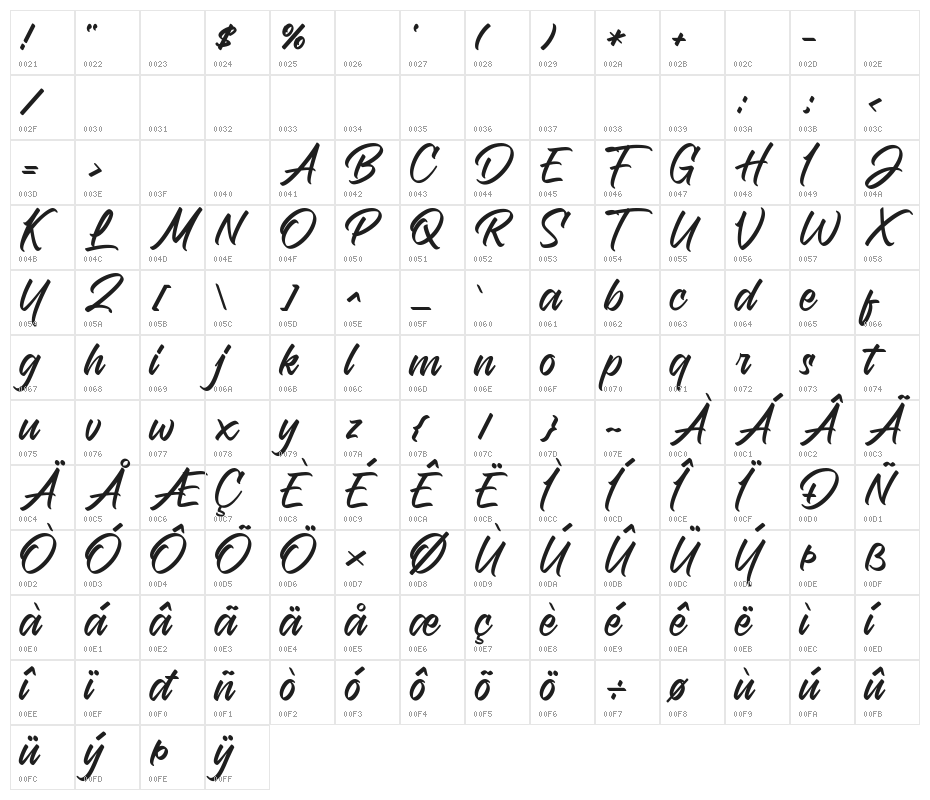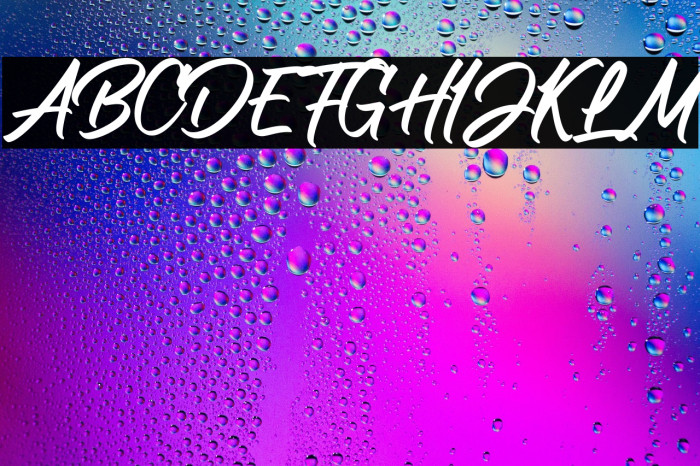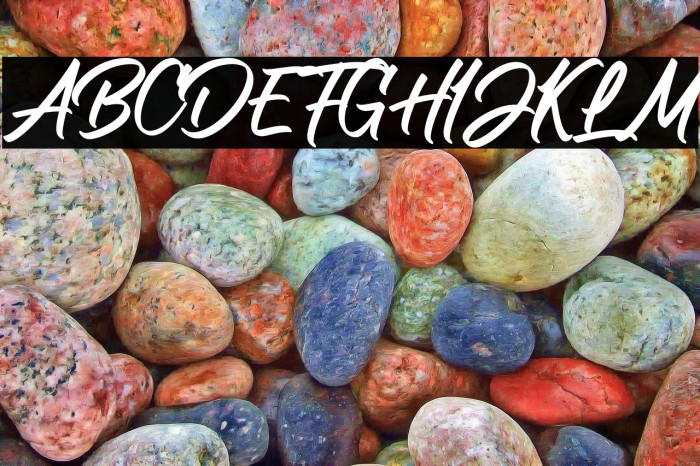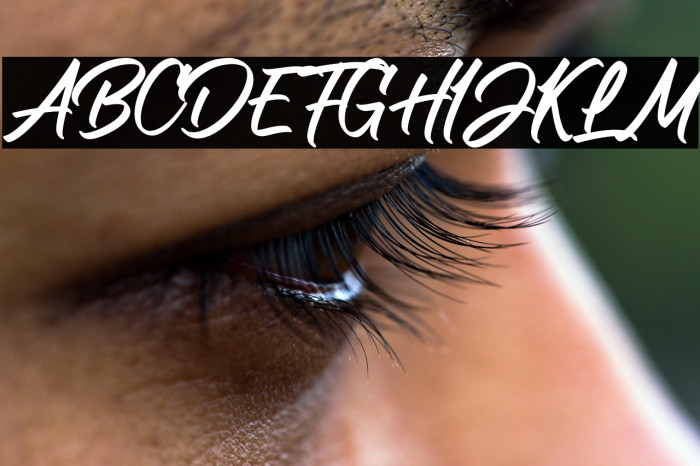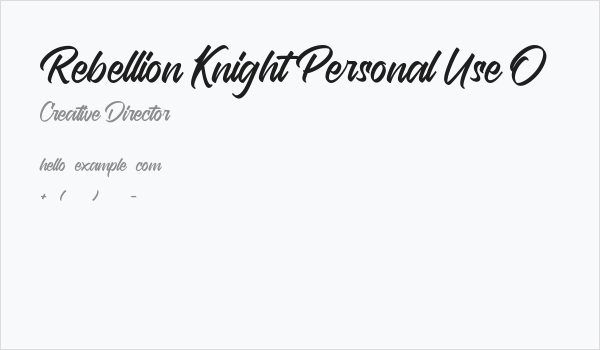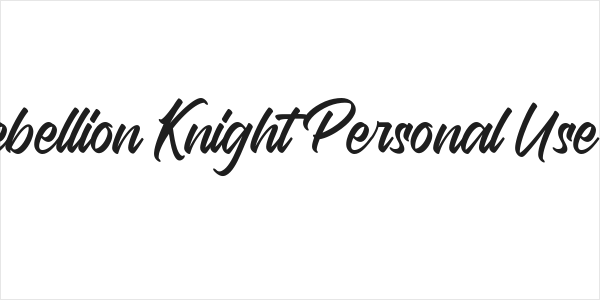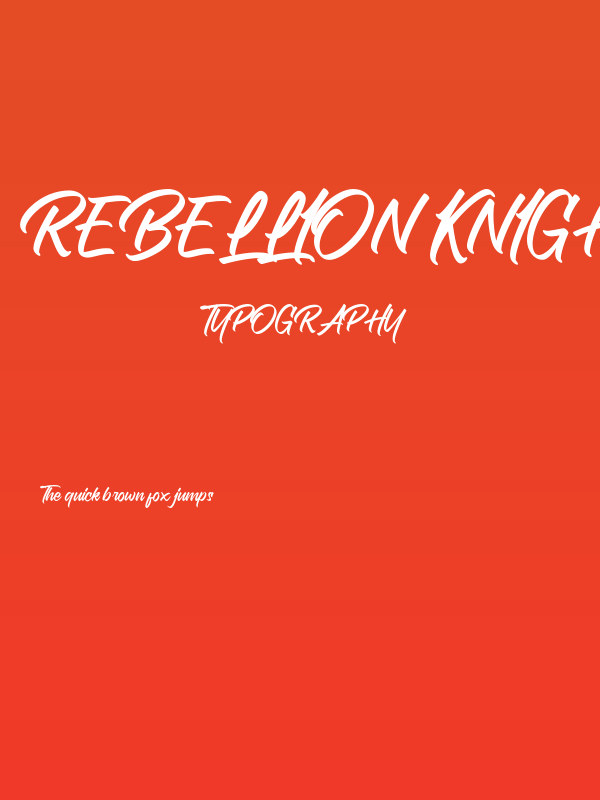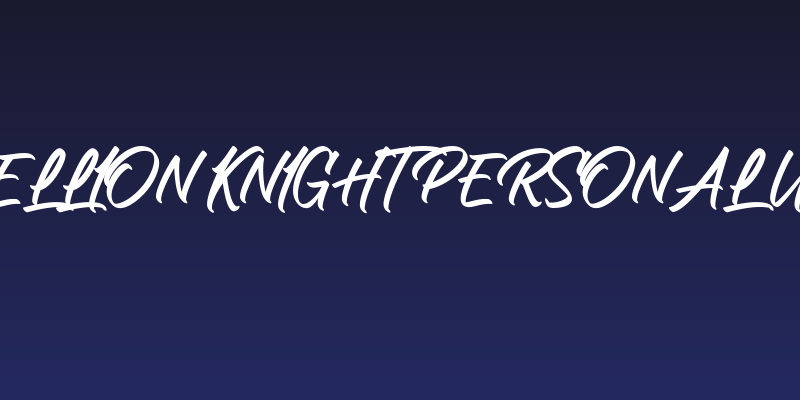
Rebellion Knight Personal Use O Font
Rebellion Knight Personal Use O Description
This font exudes a bold and dynamic script style, characterized by its fluid, cursive strokes and a sense of movement. The uppercase letters are elegantly connected, while the lowercase letters maintain a consistent flow, enhancing readability. The font's design is both expressive and stylish, making it suitable for creative projects that require a personal touch. The characters are well-balanced, with a slight slant that adds to the overall aesthetic appeal. The special characters are designed to complement the letters, maintaining the same energetic and artistic vibe.